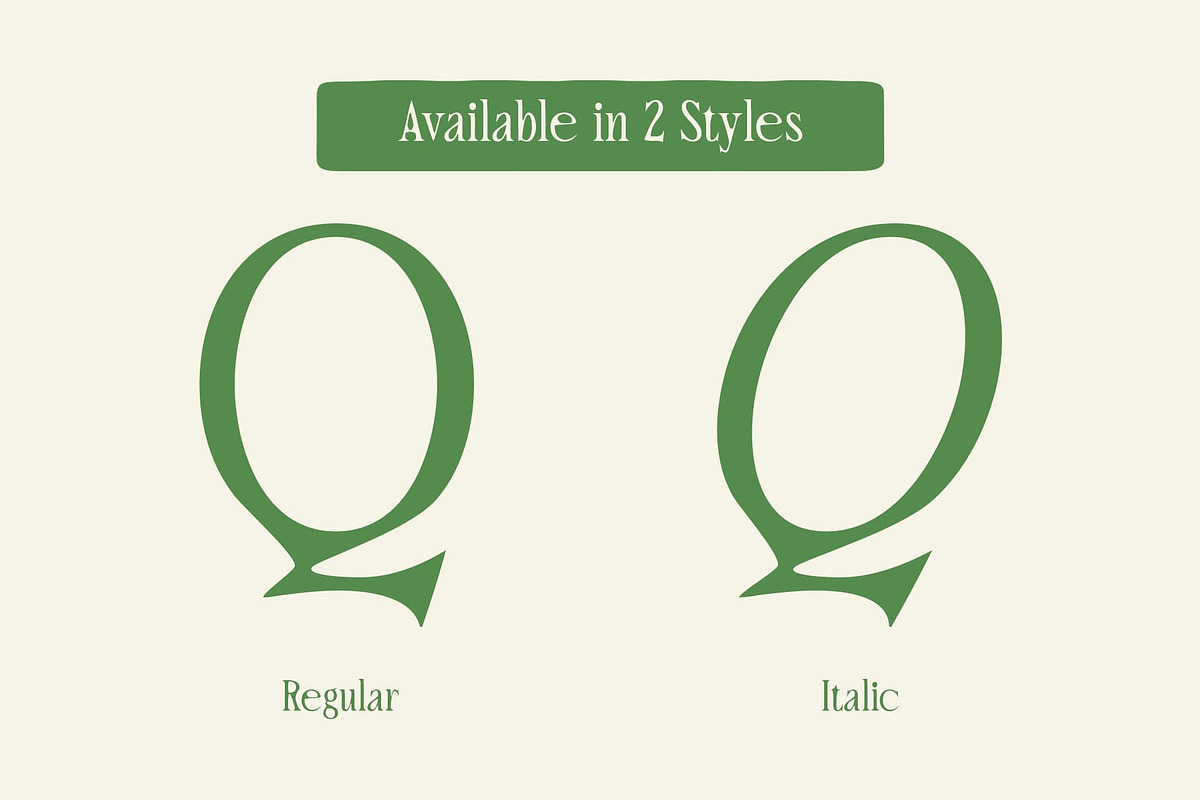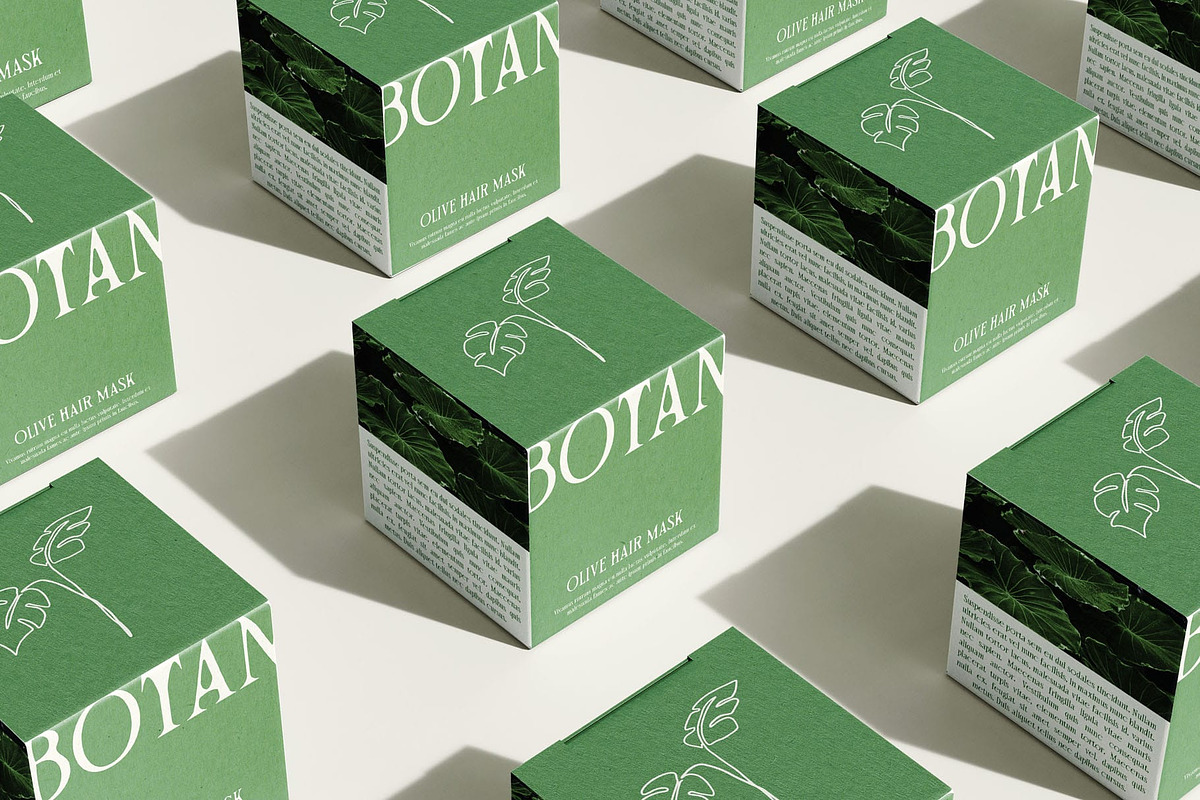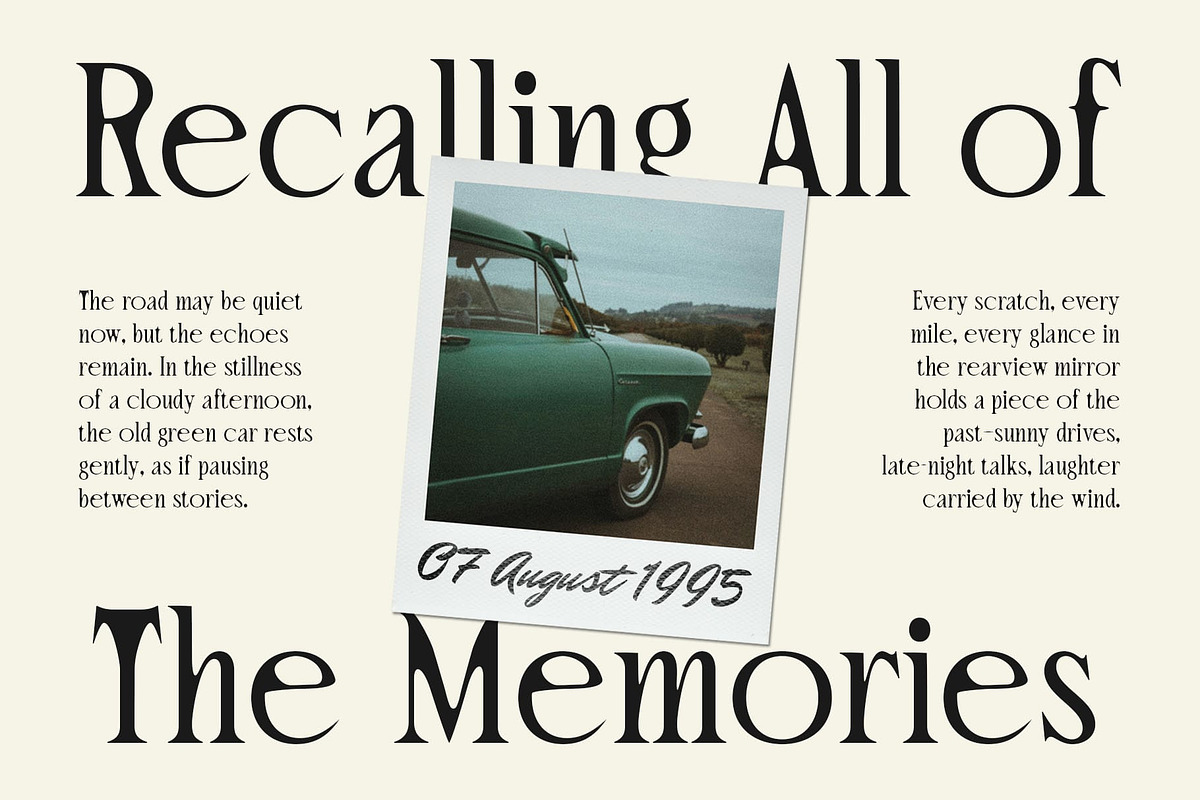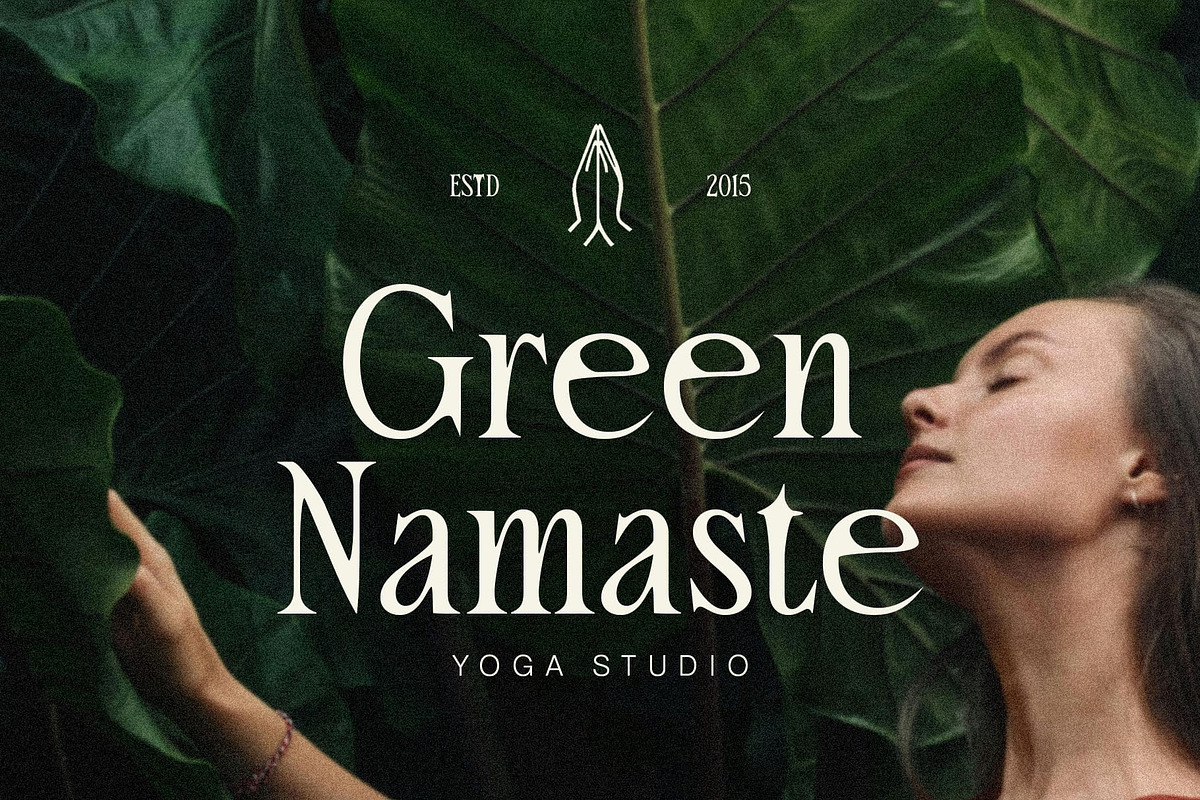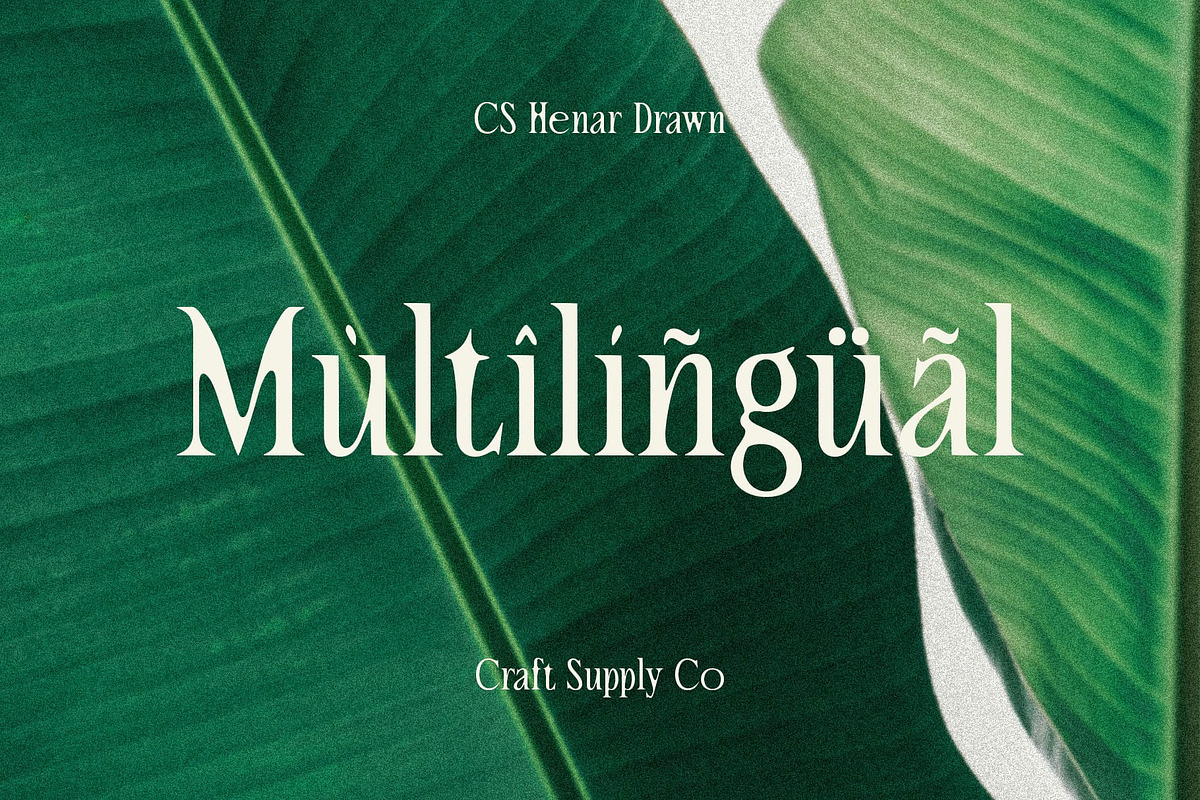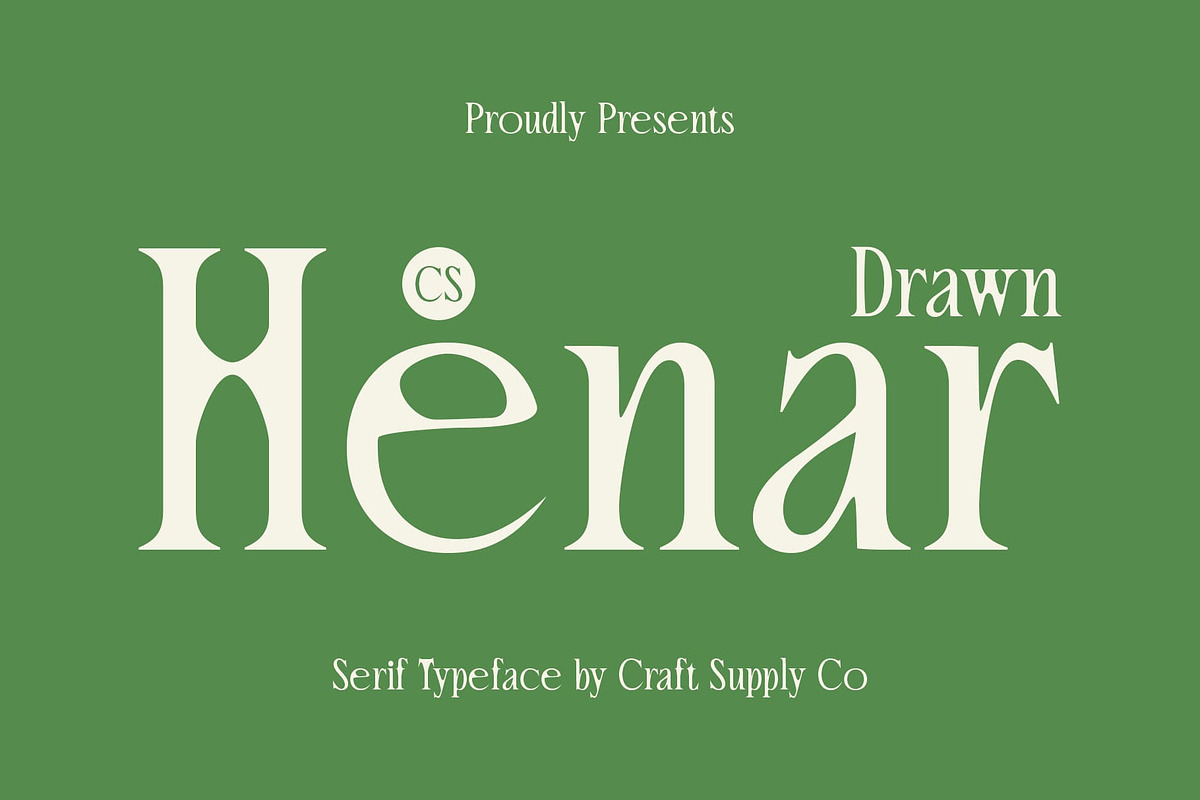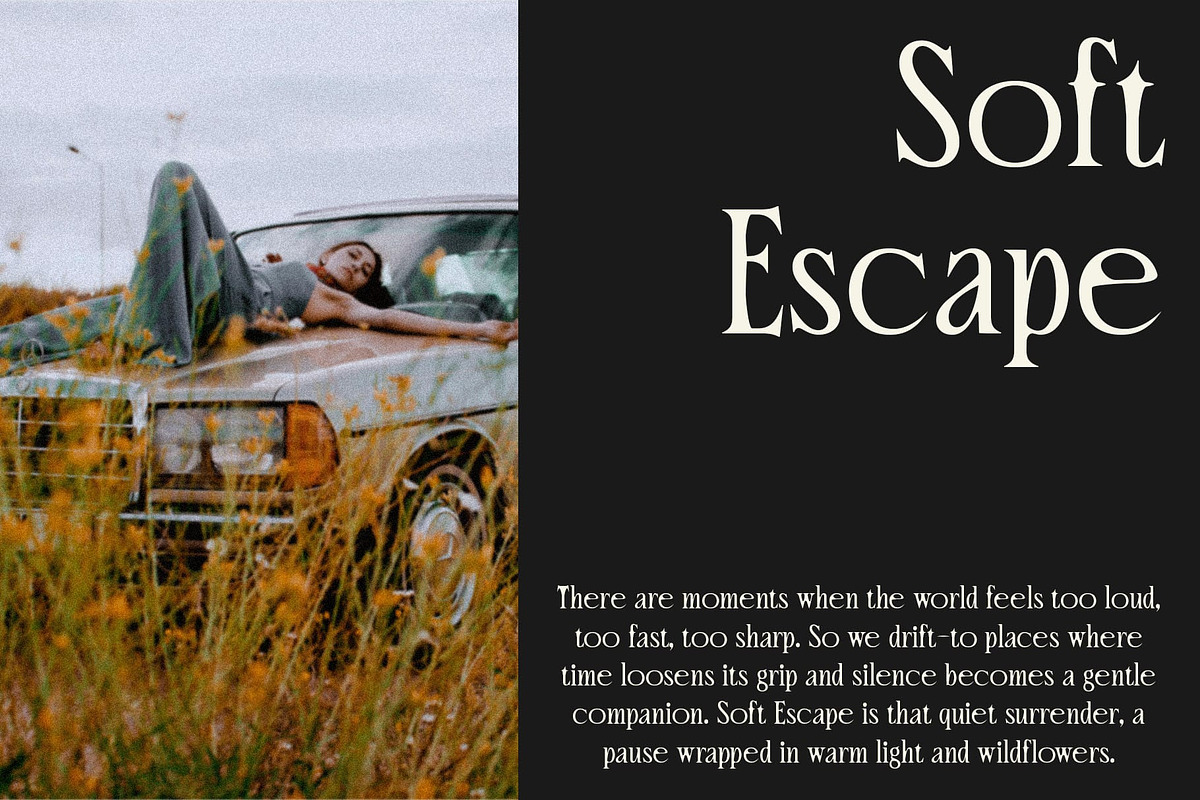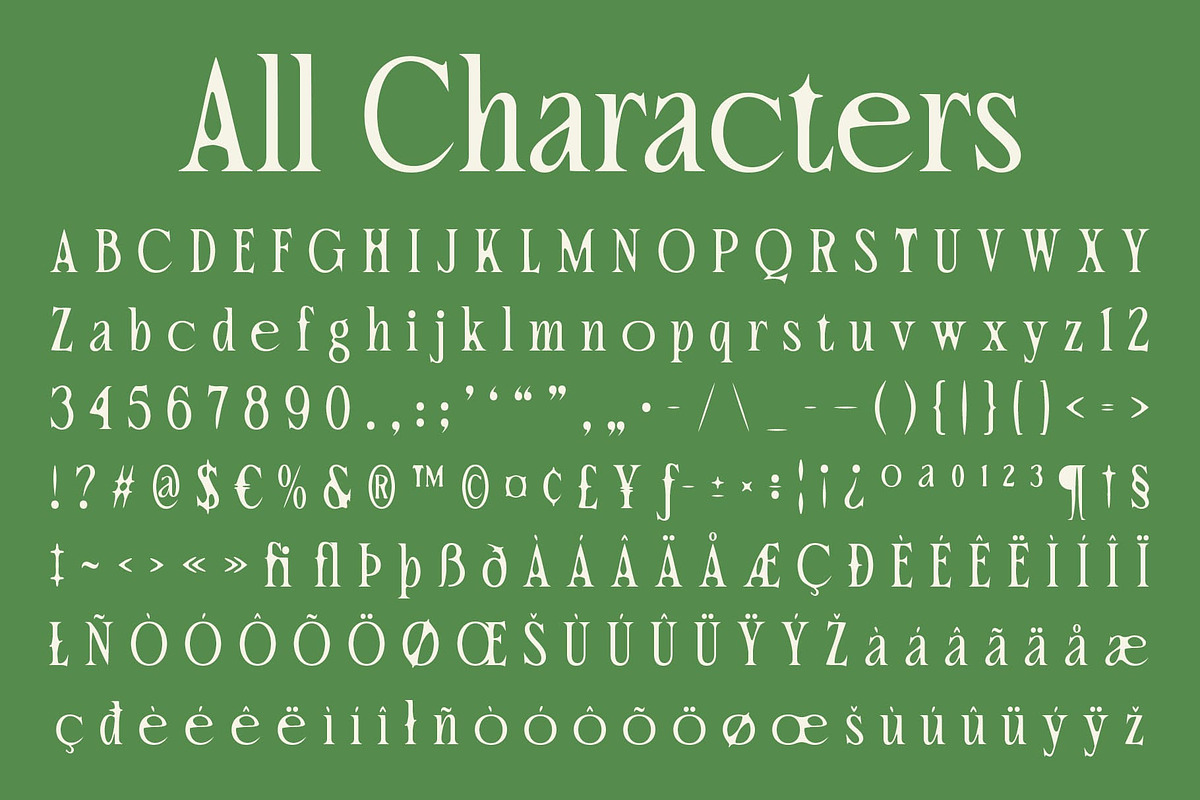
CS Henar Drawn
CS Henar Drawn – A Refined Modern Serif with Handcrafted Elegance
Modern Sophistication with a Human Touch CS Henar Drawn is a modern serif font that combines graceful refinement with artistic warmth. Its subtle serifs and thoughtful curves lend the font a distinctly feminine and elegant character, making it ideal for high-end design work.
Balanced, Light, and Expressive Each letterform in this feminine font is carefully shaped to convey both clarity and softness. The balanced spacing, slender strokes, and understated contrasts give the typeface a sense of lightness and poise, while still maintaining legibility and visual presence. It’s the kind of font that doesn’t shout, but instead whispers luxury with quiet confidence.
A Soft Drawn Texture with Artistic Depth What sets this modern and organic font apart is its delicate drawn effect. This handcrafted layer—evoking pencil sketch lines or subtle brush textures—adds a warm, organic quality that enhances its personality. It brings just the right amount of imperfection to balance its clean design, creating a sense of authenticity, artistry, and gentle emotion in every letter.
Perfect for Elegant and Creative Projects Whether you’re designing editorial spreads, luxury branding, beauty product packaging, or sophisticated wedding invitations, this stylish and timeless font offers versatility and elegance. It seamlessly adapts to projects that demand a stylish, graceful touch while maintaining a modern and fresh appearance.